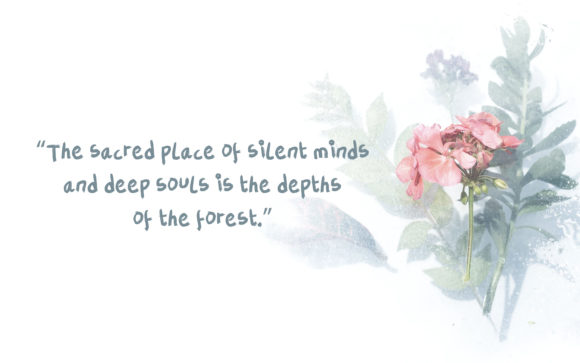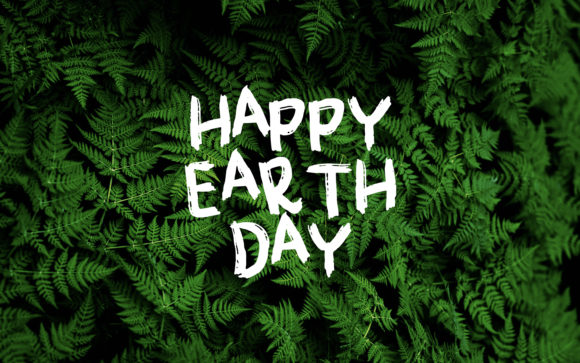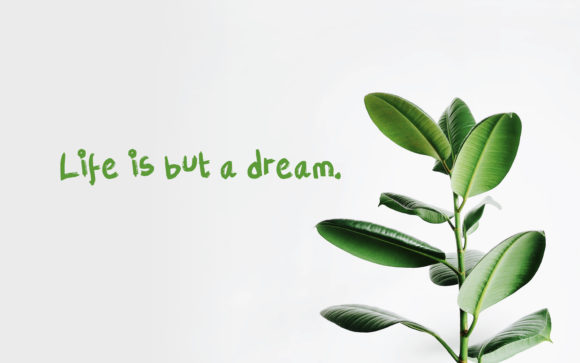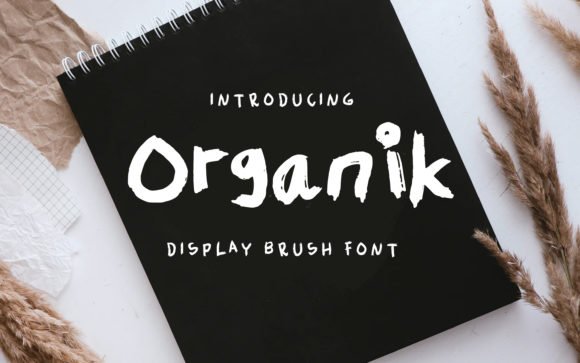
Introduction to Organik Font
Organik is a cute and quirky display font.
It will add an incredibly joyful touch to your designs Add this beautiful display font to each of your creative ideas and notice how it makes them stand out.
Key Features of Organik Font
Why Choose Organik Font?
Organik Font offers exceptional quality and versatility, making it a valuable addition to your design toolkit. Whether you’re creating for personal projects or commercial use, Organik Font delivers professional results.